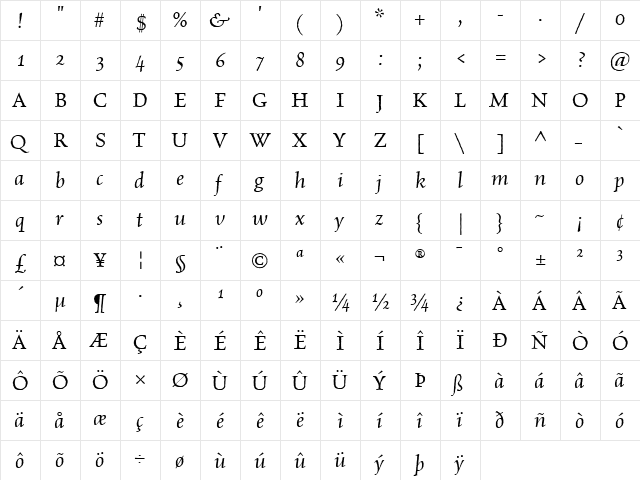
Celestia Antiqua Italic
Design Context for Celestia Antiqua Typeface
Celestia Antiqua takes a measured approach to typography — its balanced proportions and neutral character make it a reliable workhorse for both digital and print work. The slanted form adds forward momentum and visual energy.